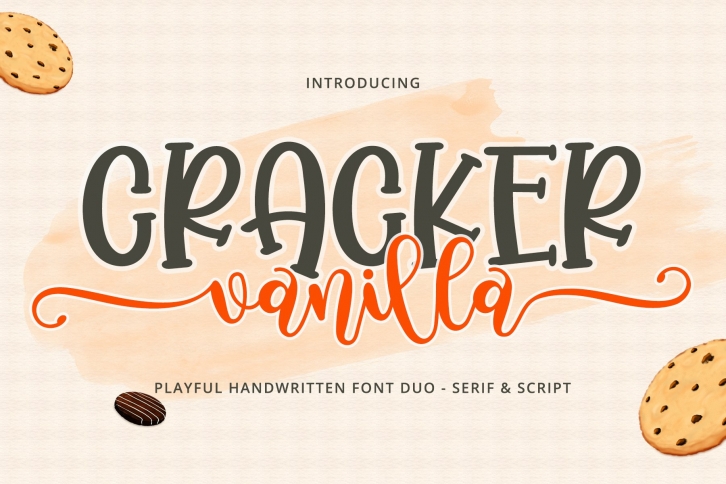
Cracker Vanilla is a trendy and unique font with an authentic style. It was designed by Airotype and it's a great choice for creative people who need such a font. It was released on February 9, 2021 and the file size is 14.96 MB. Cracker Vanilla will add an organic vibe to any design idea!